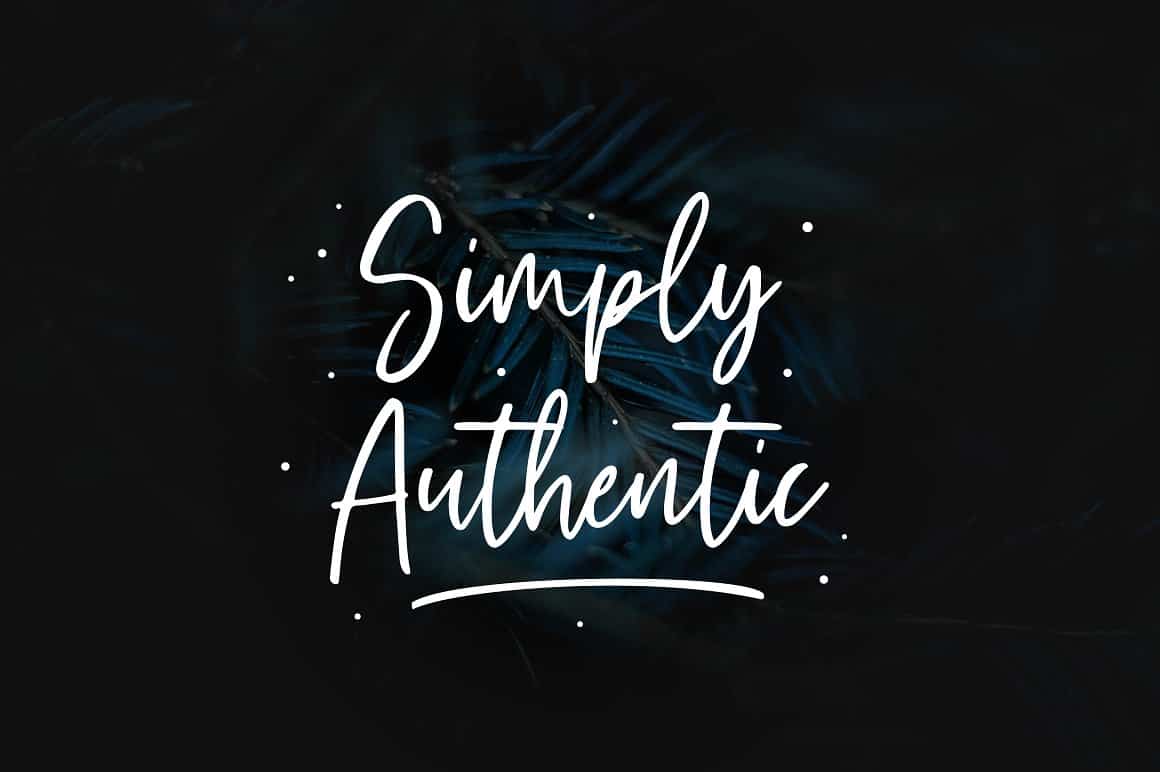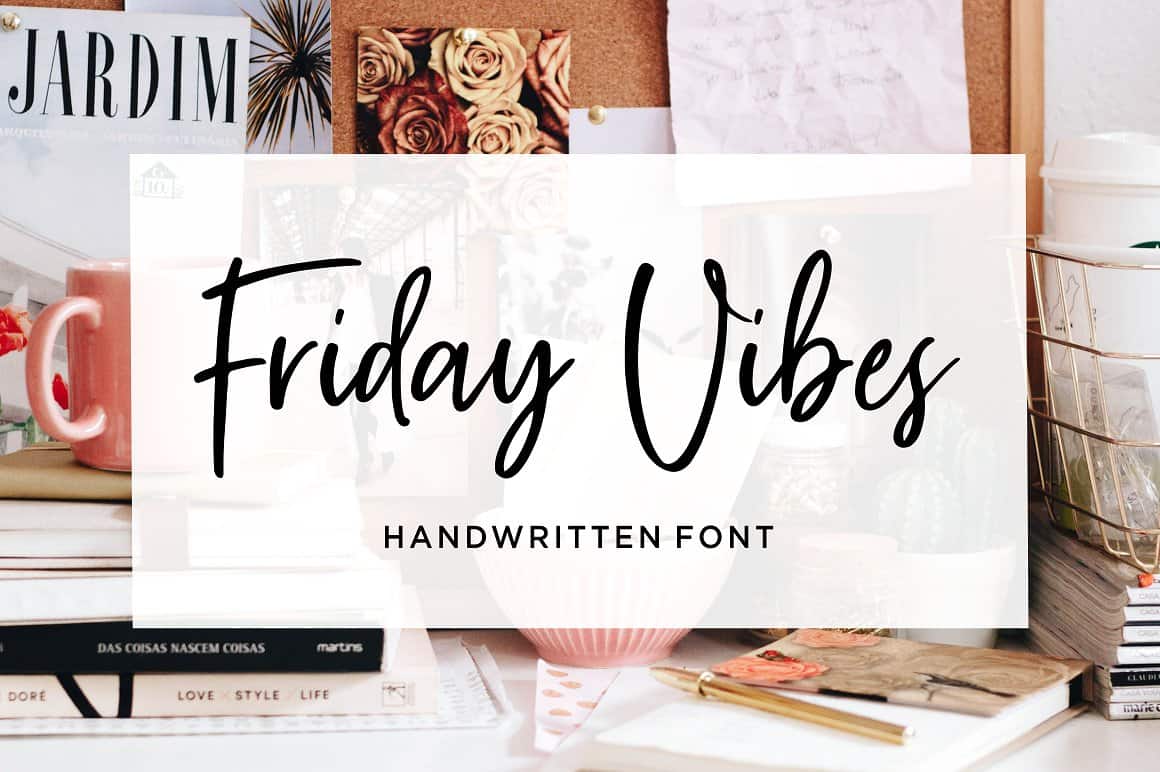
Friday Vibes Font
Friday Vibes Font is commonly used in brand design. It’s a hand-lettered script font similar to fonts that are readily available.
Style Of Friday Vibes Font Free